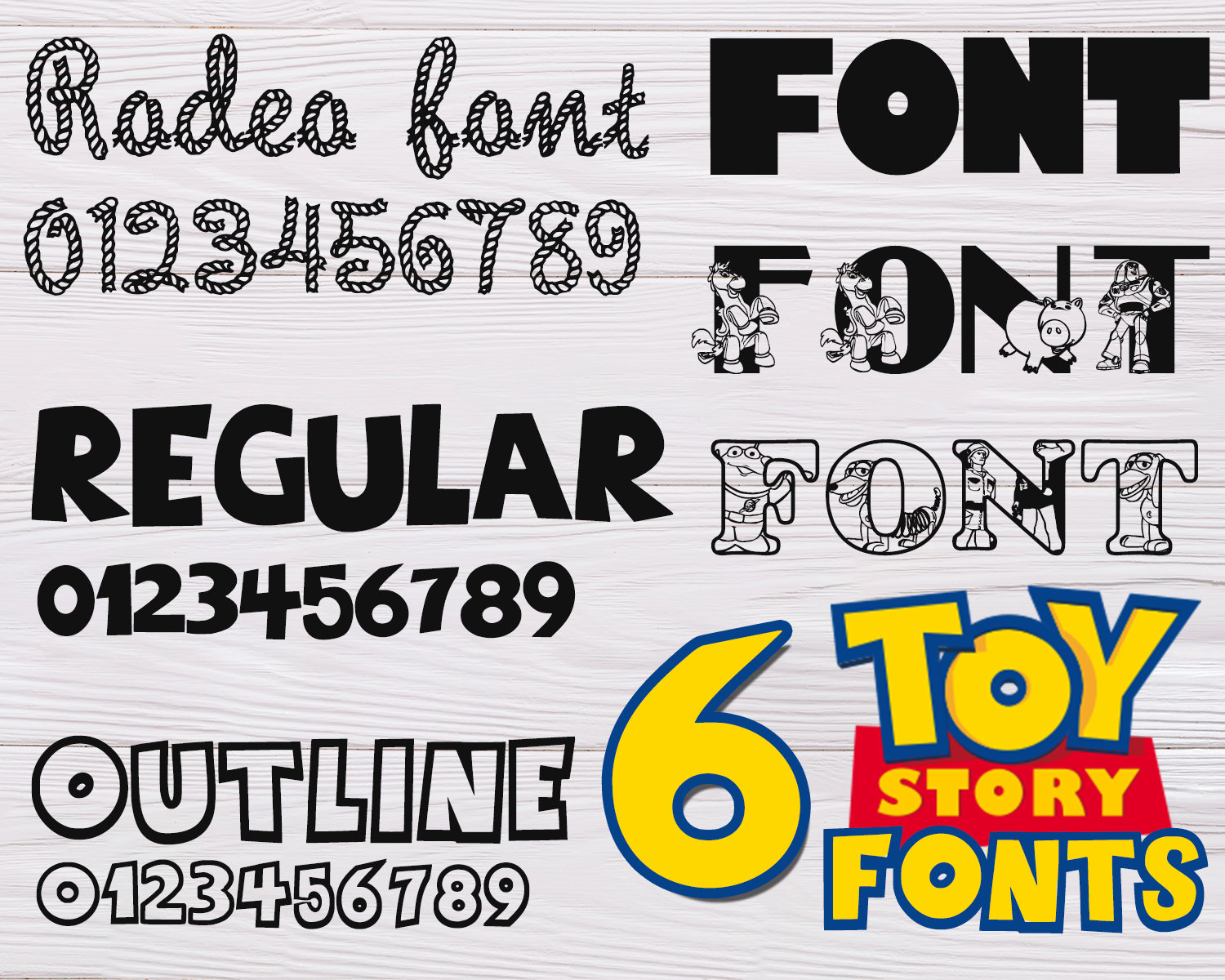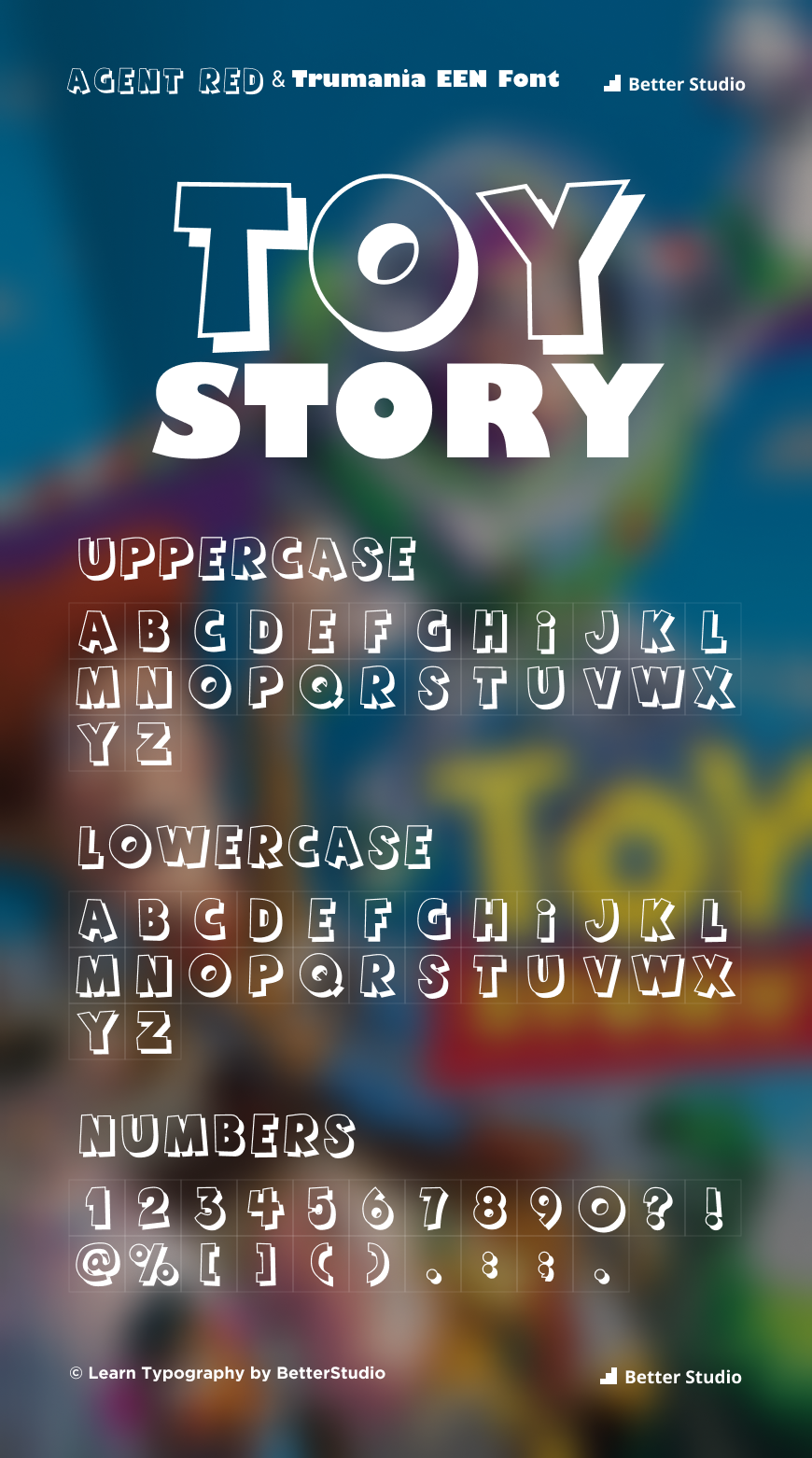
Dafont Toy Story Font - Feb 08, 2011 at 13:04. 1 file (s) 185.54 kb. The t and y on toy part is eagle bold. Web the toy story font is a sans serif font that was created specifically for the toy story movie franchise. Web toy story 3 font? The o is also gill sans ultrabold. Edited on feb 08, 2011 at 17:39 by rodolphe. Web aug 16, 2018 at 02:01. Web sep 29, 2020 at 13:59. Toy font, toy outlined, story font and the rope rodeo font.
Web The Toy Story Font Is A Sans Serif Font That Was Created Specifically For The Toy Story Movie Franchise.